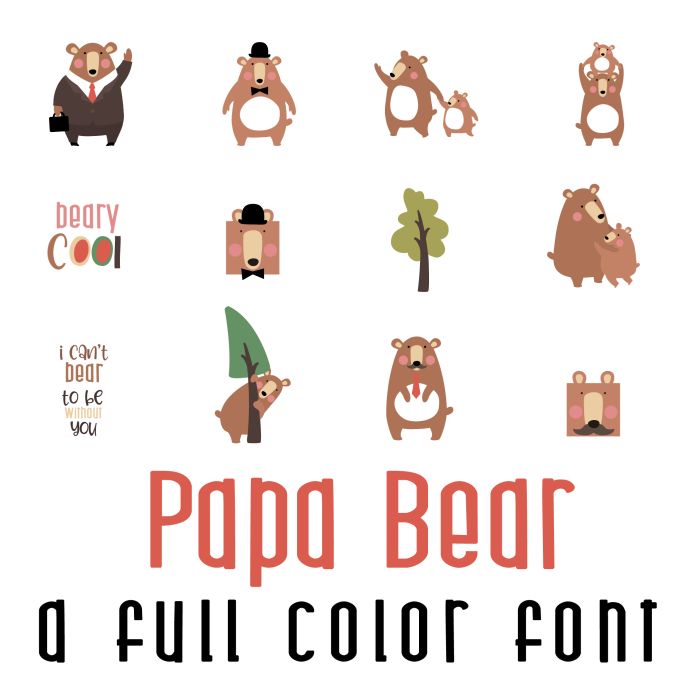
This fun full color font features 26 different papa bears. Perfect for cards, crafts, gifts, decor, scrapbook pages, planner stickers, Father's Day and more!